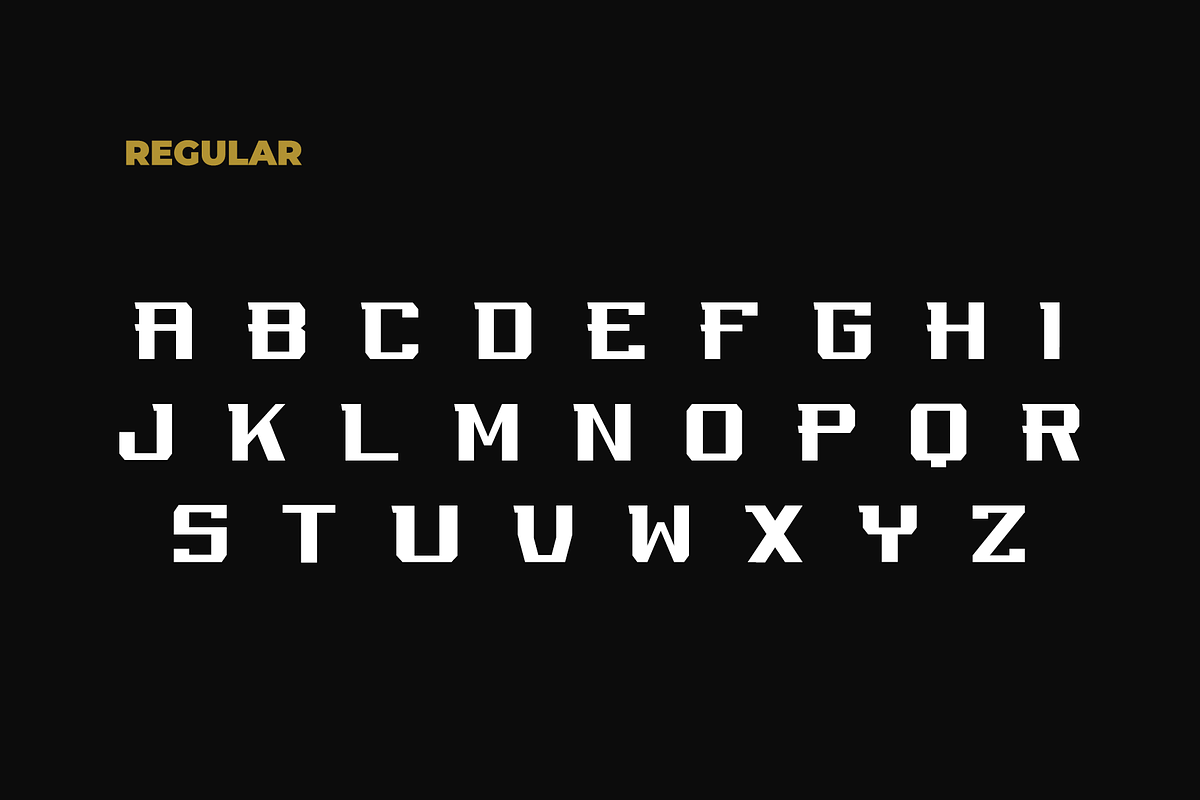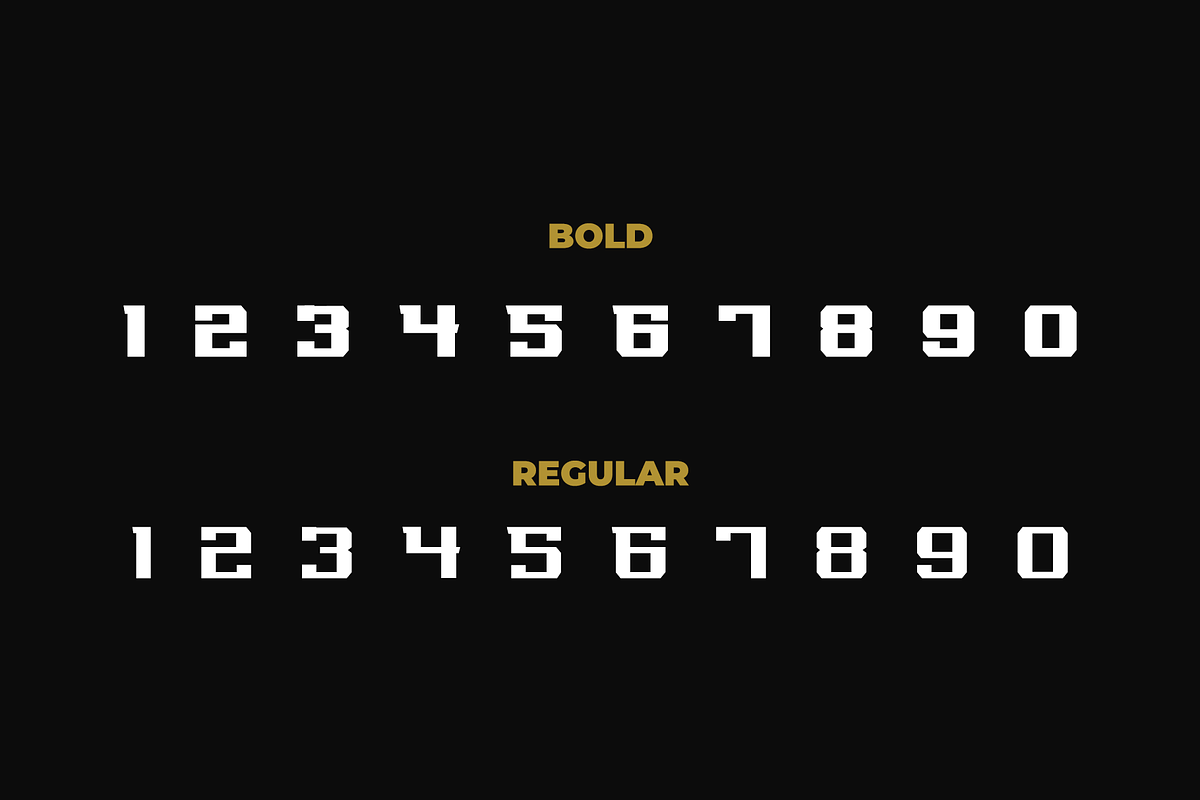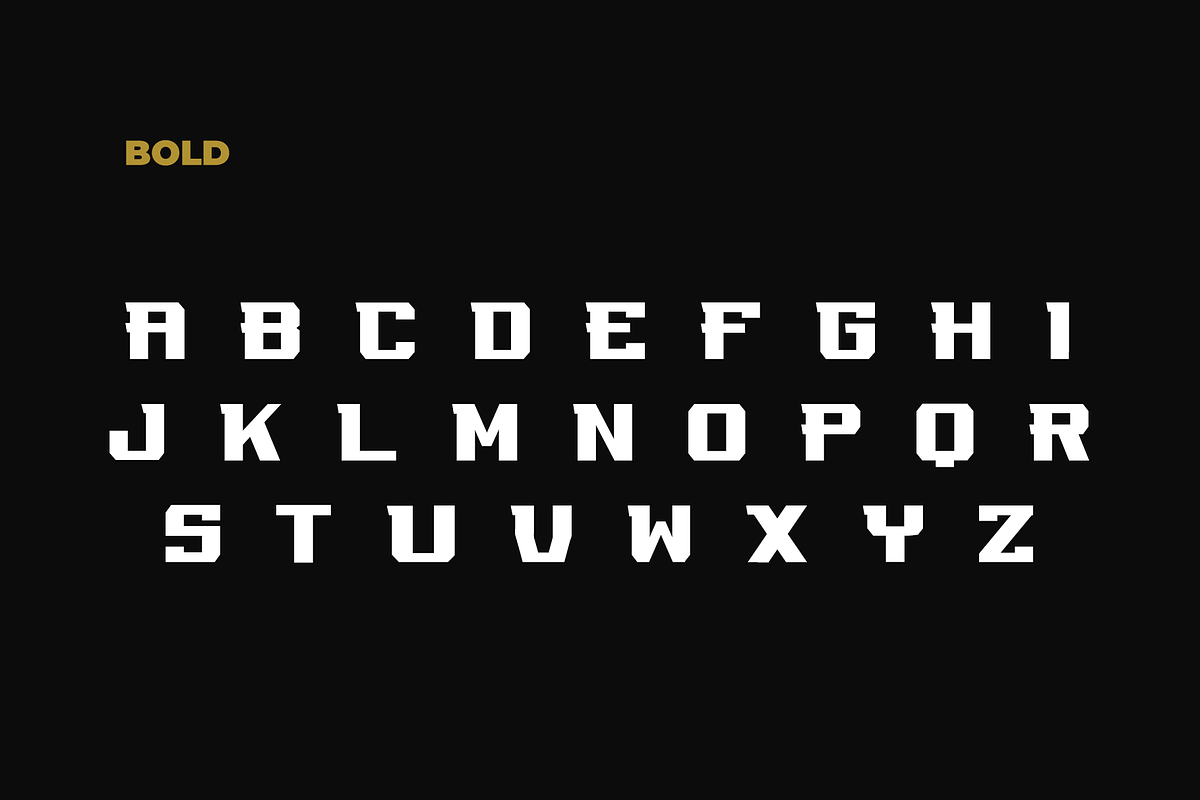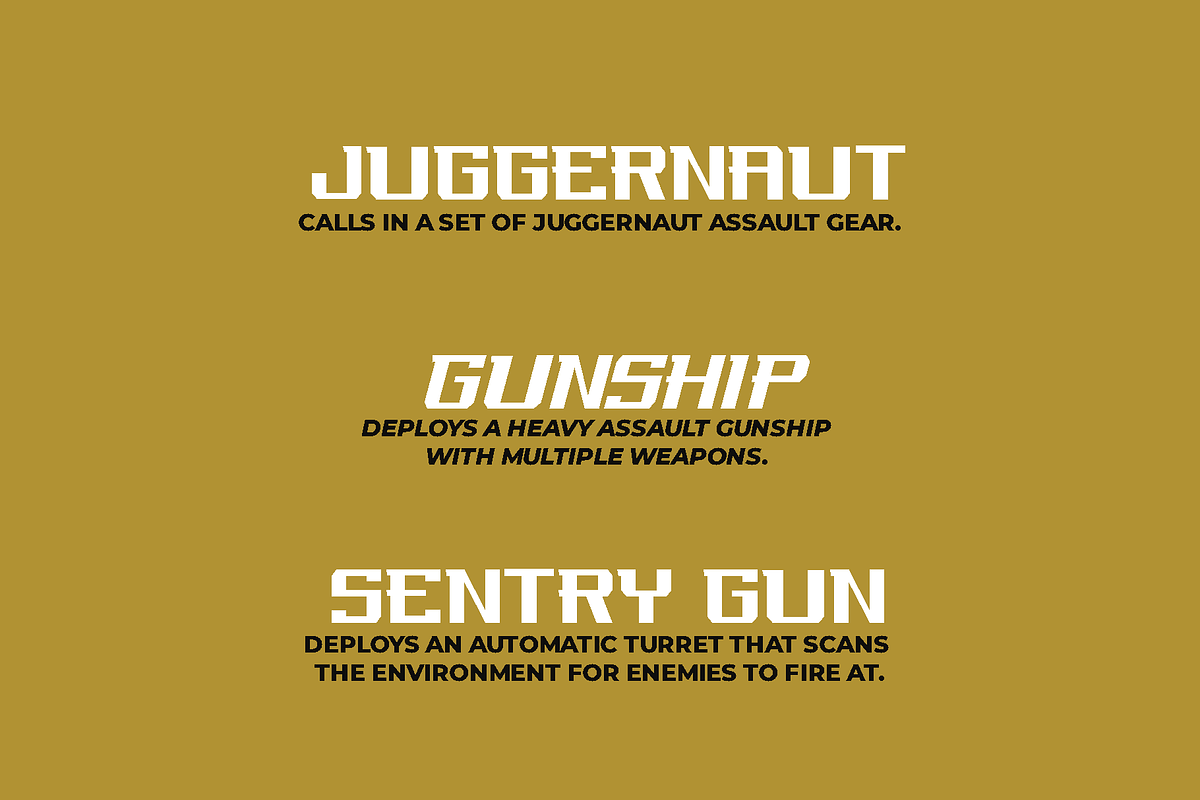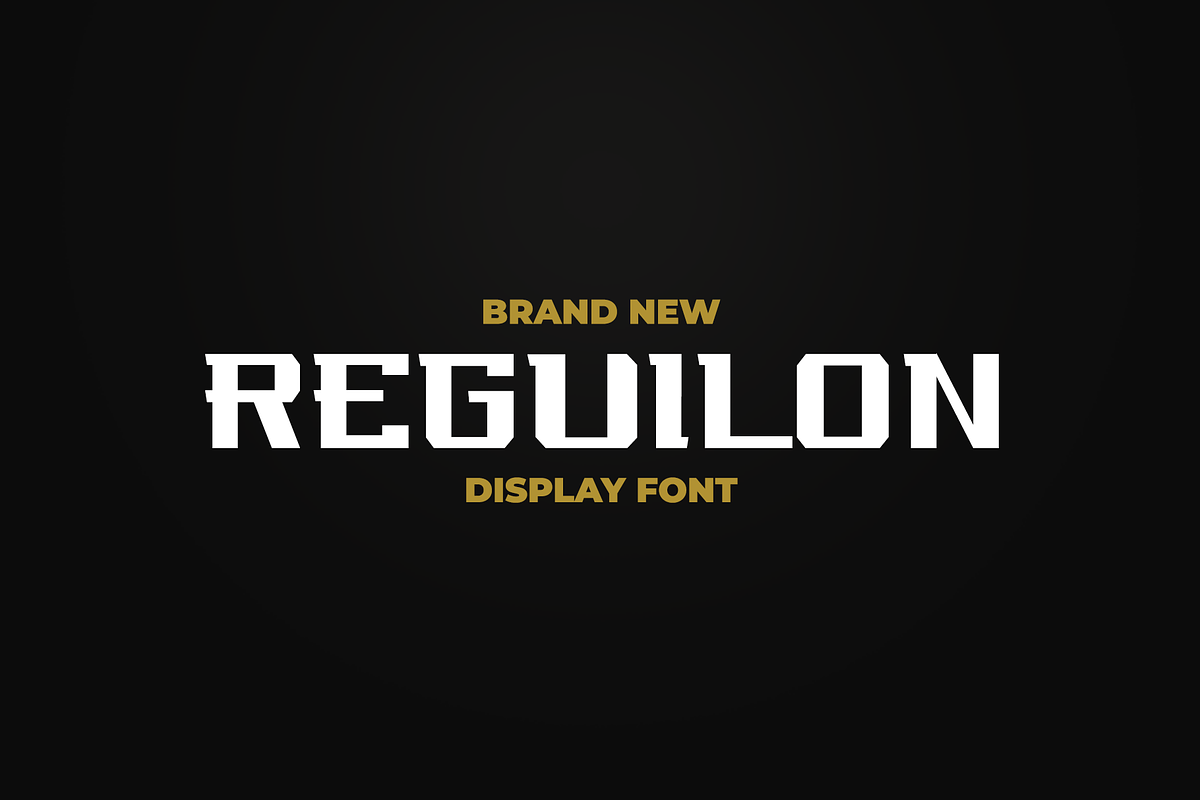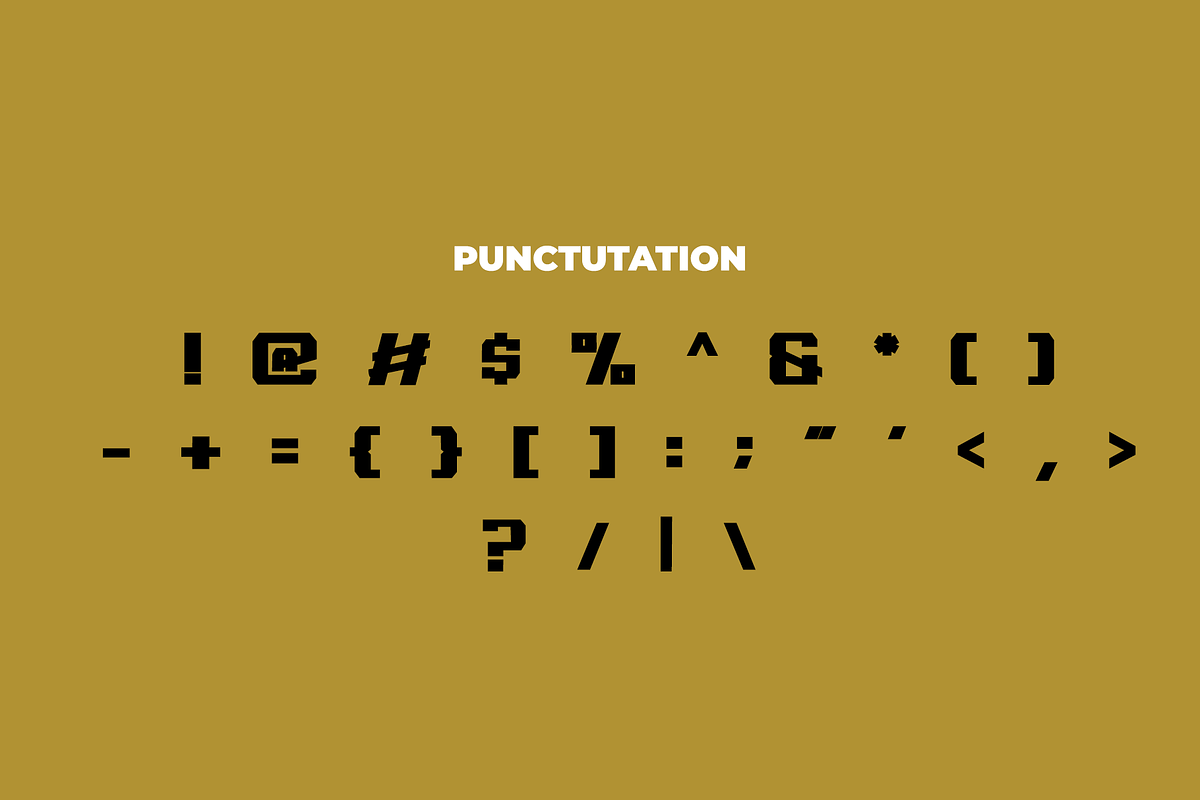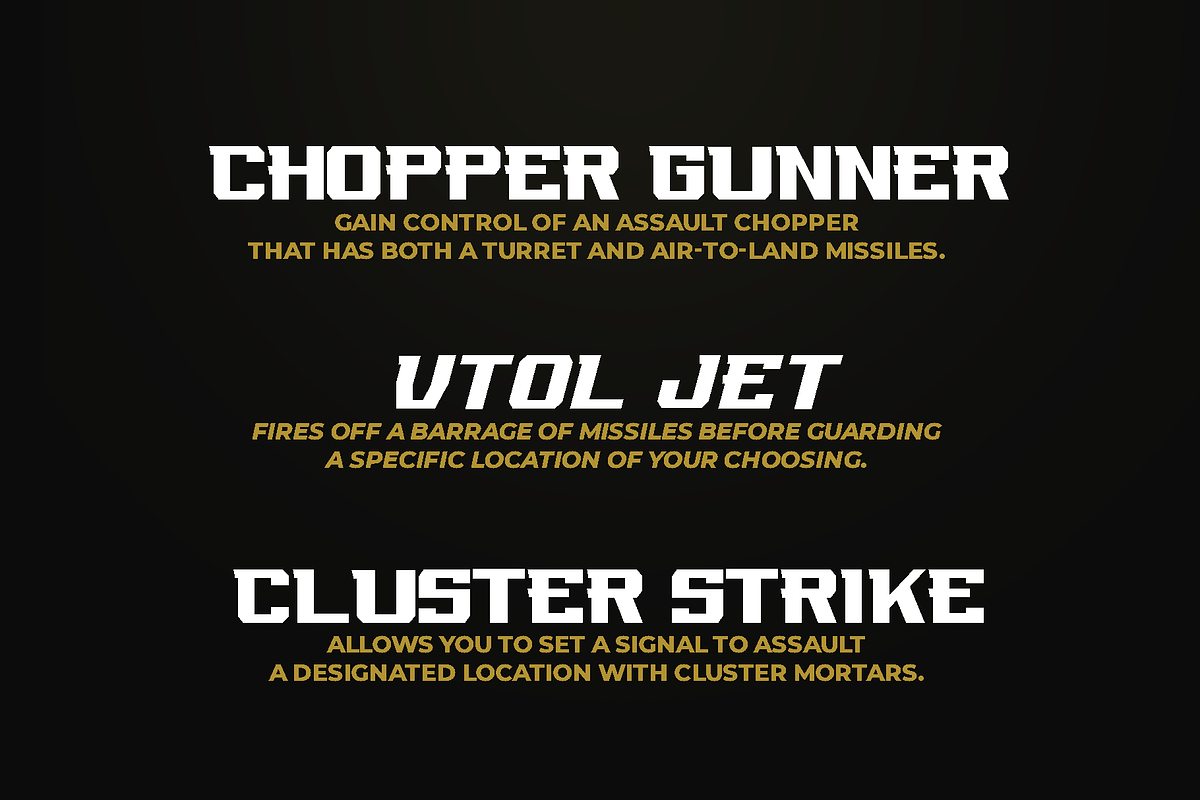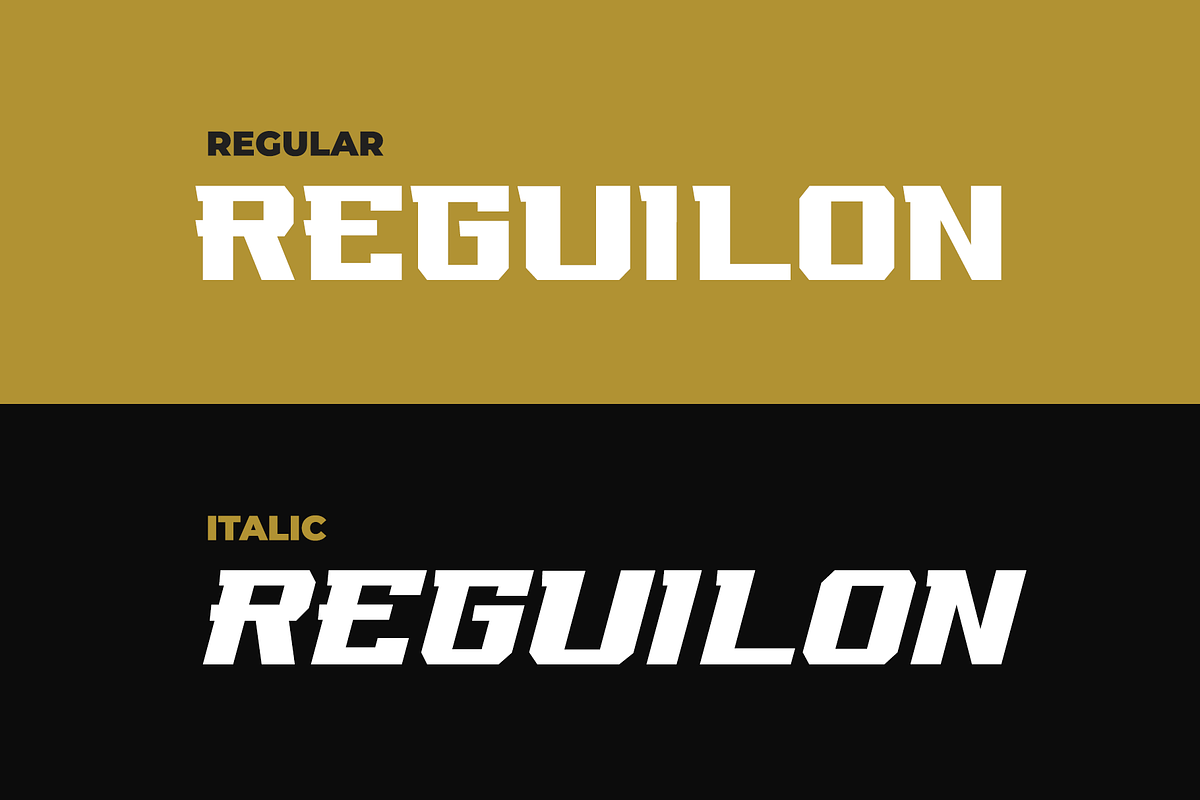
REGUILON Sport Displat Font
Warrock Exclusive Display font, is our new item that suitable for your team logo, or community logo.
Great for Logo, Sticker, Jersey, Invitation Card, Brochure, etc.
REGUILON Sport Displat Font by Haws.std fits naturally into Branding, posters, packaging, typography.